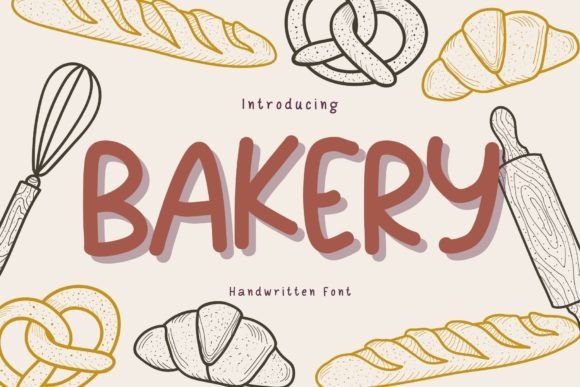
Bakery Font: The Perfect Handwritten Font for Your Creative Projects
Are you a designer, crafter, or DIY enthusiast looking for a font that embodies playfulness and authenticity? Look no further than the Bakery font! This adorable handwritten font is perfect for adding a personal touch to your blog posts, logos, branding, ads, invitations, greeting cards, planners, photo albums, decorations, and more.
What is Bakery Font?
Bakery font is a cute and charming handwritten font that is designed to bring a sense of warmth and personality to your designs. Its playful and authentic feel makes it perfect for a wide range of creative projects, from digital designs to print materials.
Key Features of Bakery Font
- Playful and Authentic: Bakery font has a unique and charming personality that is sure to capture the attention of your audience.
- Handwritten Style: The font’s handwritten style gives it a personal and human touch that is perfect for designs that require a more personal approach.
- Versatile: Bakery font can be used for a wide range of creative projects, from digital designs to print materials.
- Easy to Read: The font is clear and easy to read, making it perfect for body text and headings.
Uses of Bakery Font
Bakery font is perfect for a wide range of creative projects, including:
- Blog Posts: Add a personal touch to your blog posts with Bakery font.
- Logos and Branding: Use Bakery font to create a unique and memorable logo for your brand.
- Ads: Make your ads stand out with the playful and authentic feel of Bakery font.
- Invitations and Greeting Cards: Add a personal touch to your invitations and greeting cards with Bakery font.
- Planners and Photo Albums: Use Bakery font to add a creative and playful touch to your planners and photo albums.
- Decorations: Bakery font is perfect for creating decorative elements, such as signs, banners, and posters.
Why Choose Bakery Font?
There are many reasons why Bakery font is the perfect choice for your creative projects:
- Unique and Playful: Bakery font has a unique and playful personality that is sure to capture the attention of your audience.
- Authentic and Handwritten: The font’s handwritten style gives it an authentic and personal feel that is perfect for designs that require a more personal approach.
- Versatile: Bakery font can be used for a wide range of creative projects, from digital designs to print materials.
Tips for Using Bakery Font
Here are some tips for using Bakery font in your creative projects:
- Pair with Other Fonts: Pair Bakery font with other fonts to create a unique and interesting contrast.
- Use for Headings and Body Text: Use Bakery font for both headings and body text to create a cohesive and playful look.
- Have Fun: Most importantly, have fun and be creative with Bakery font!
Bakery font is a cute and charming handwritten font that is perfect for adding a personal touch to your creative projects. Its playful and authentic feel makes it perfect for a wide range of designs, from digital designs to print materials. With its ease of use, versatility, and unique personality, Bakery font is the perfect choice for designers and crafters of all levels.